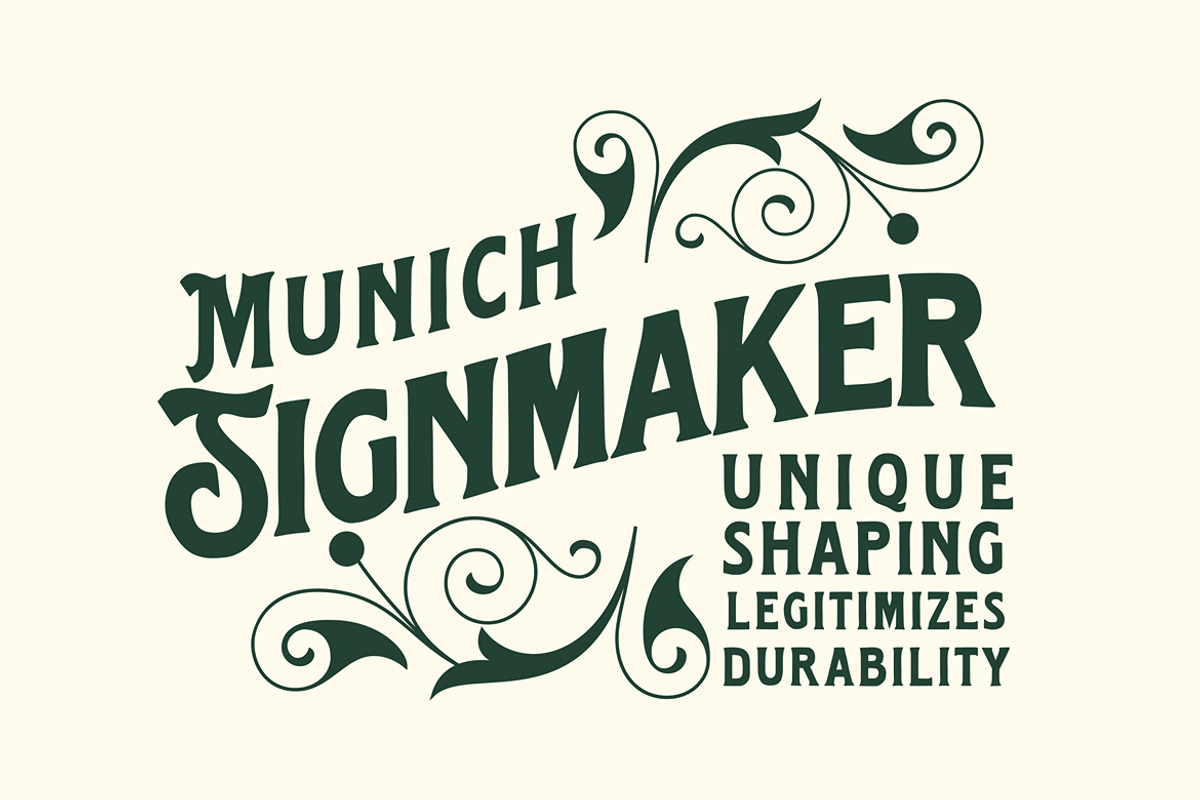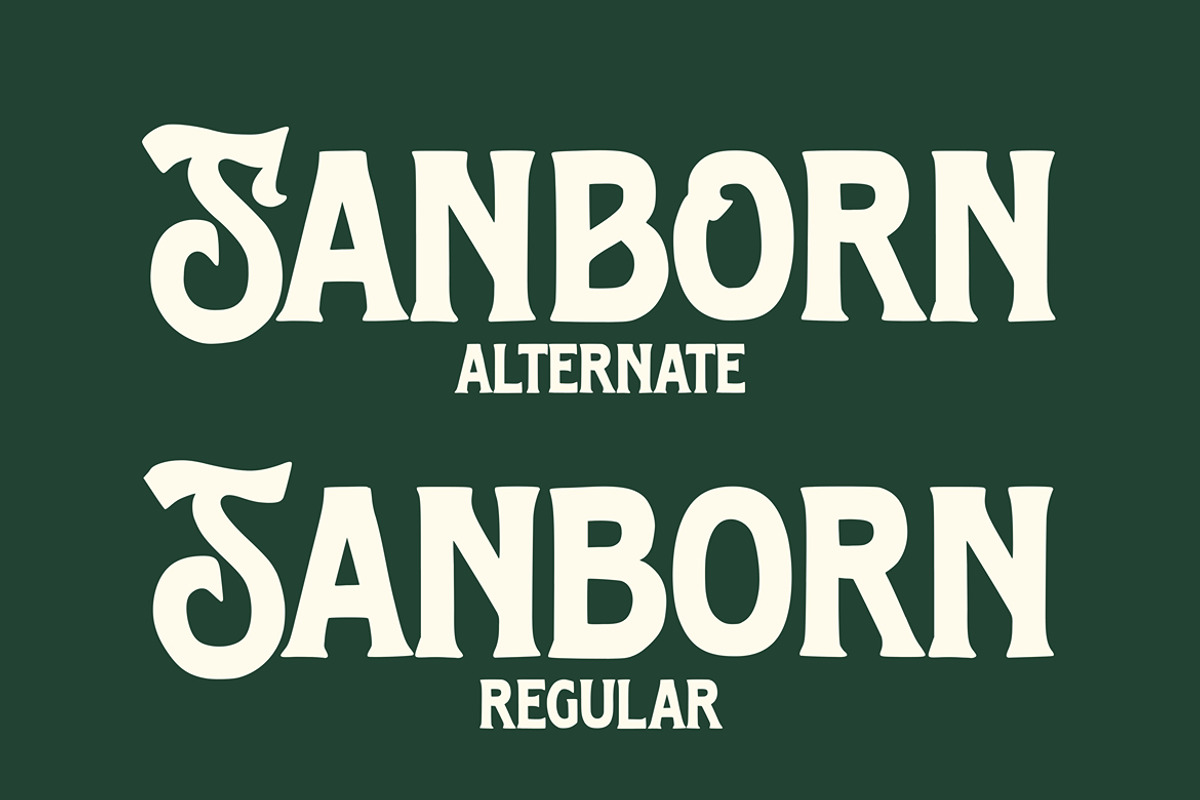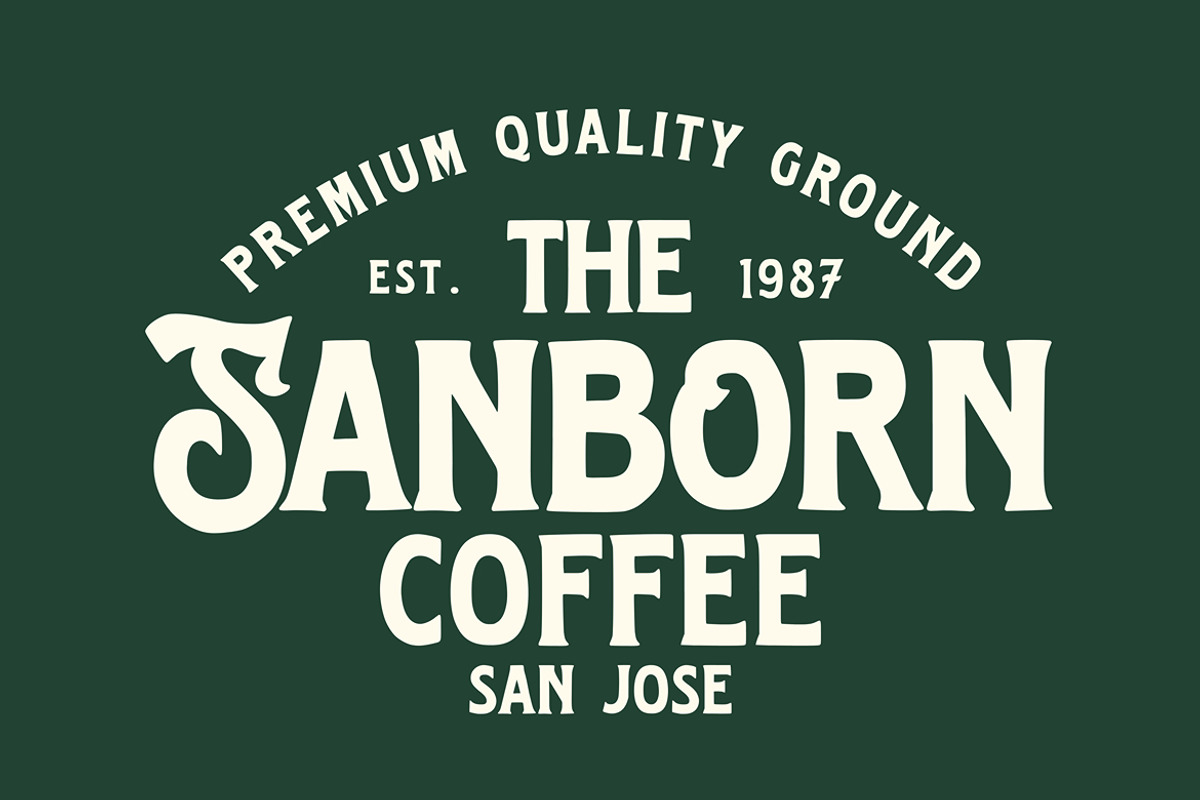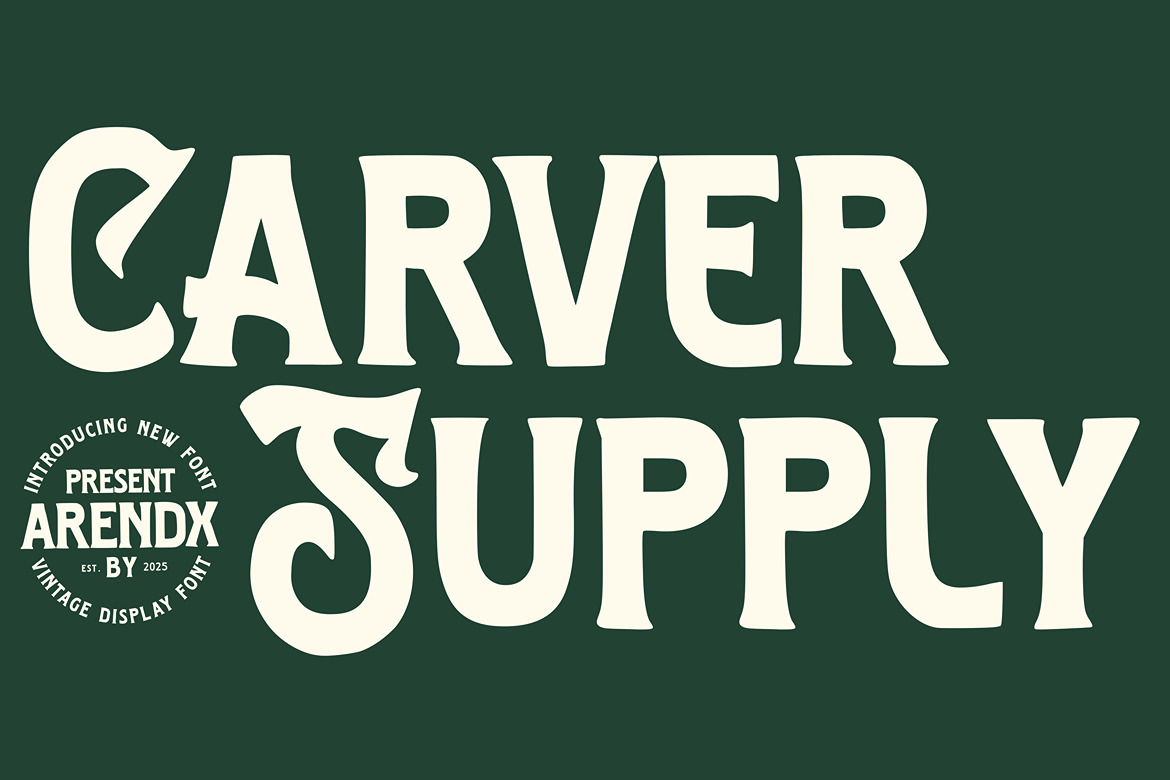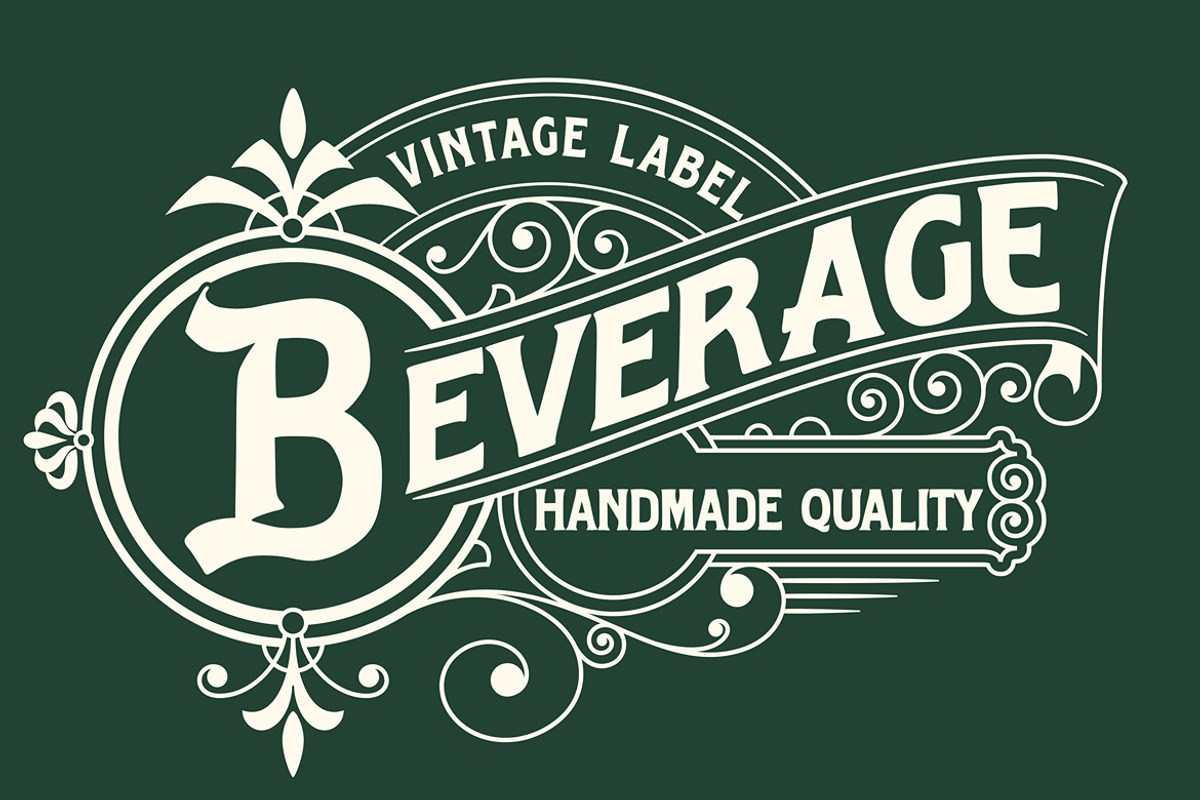
Carver Supply - Vintage Font
Step back into the golden age of design with Carver Supply, a captivating vintage display font presented by Arendx. Est. by 2025, this typeface captures the warm, organic spirit of mid-century aesthetics and bold signage, offering a powerful tool for modern branding and creative projects. Carver Supply isn't just a font; it's a personality, brimming with genuine, handcrafted charm.
The font features thick, creamy strokes and distinctive, flowing serifs that give it a substantial yet friendly presence. Its retro curves and slightly condensed structure ensure high impact and exceptional visibility, making it the ideal choice for eye-catching titles, impactful logos, and distinctive product labeling. The inherent warmth of its forms evokes a sense of quality, trust, and timeless heritage, perfect for businesses and creators aiming for a classic, established feel.
Carver Supply excels in conveying a sense of authenticity and down-to-earth craftsmanship. Use it to brand specialty goods, craft striking headlines for editorial layouts, design memorable packaging, or create engaging promotional materials for food and beverage products, outdoor supplies, or artisanal crafts. This typeface delivers a dose of comforting nostalgia while maintaining a robust, contemporary appeal, ensuring your message stands out with both style and substance.
Features : Uppercase and lowercase characters